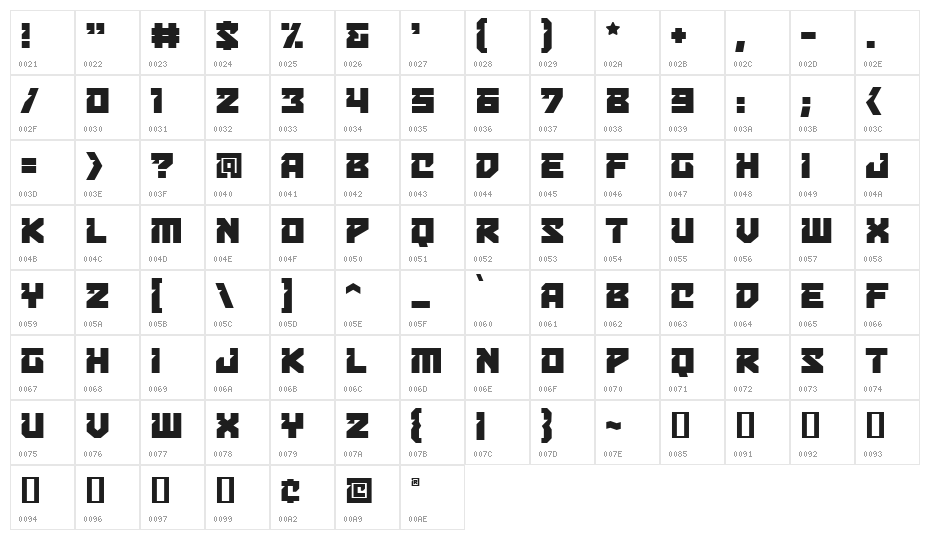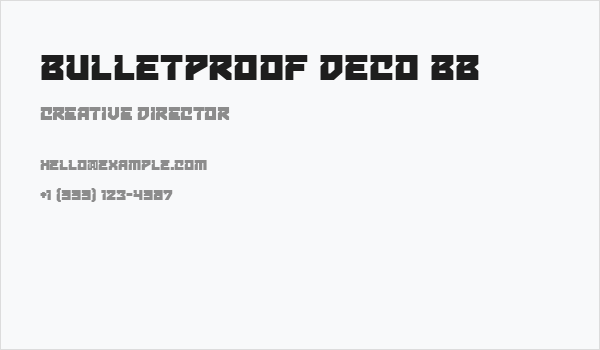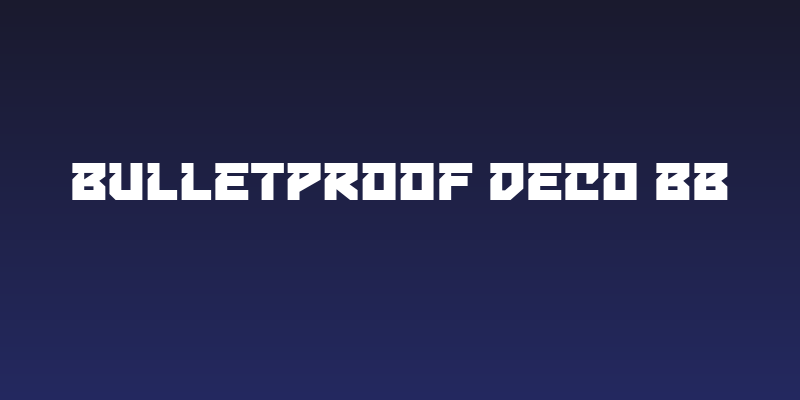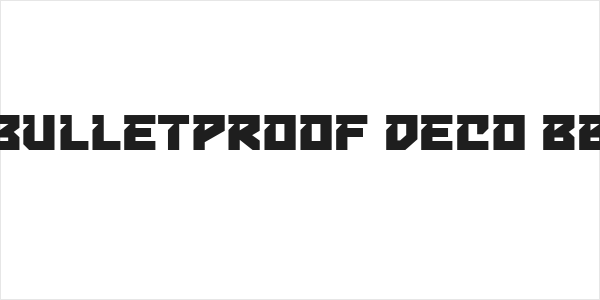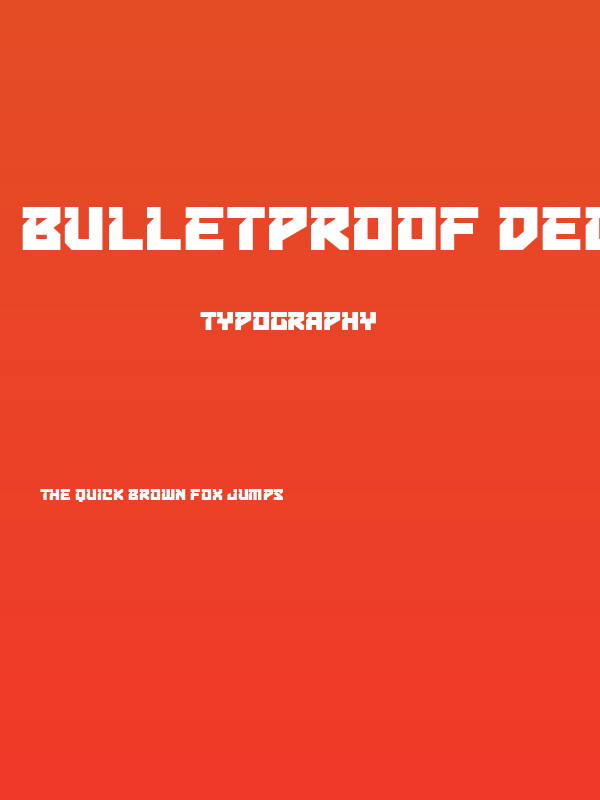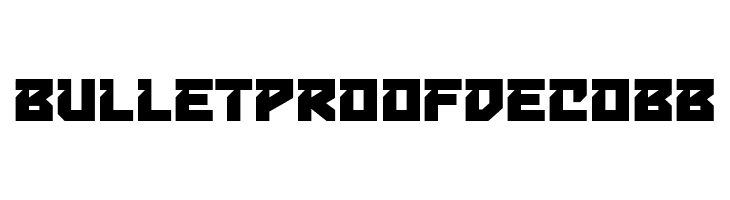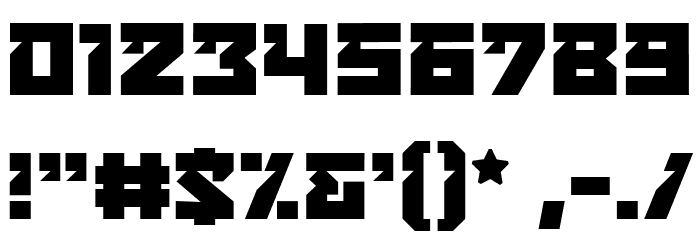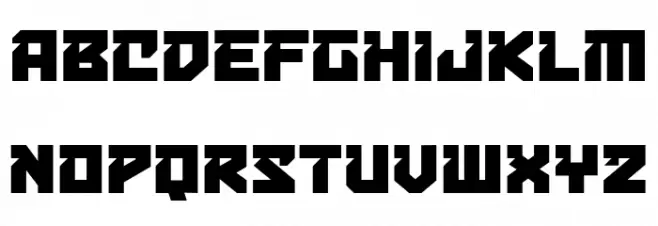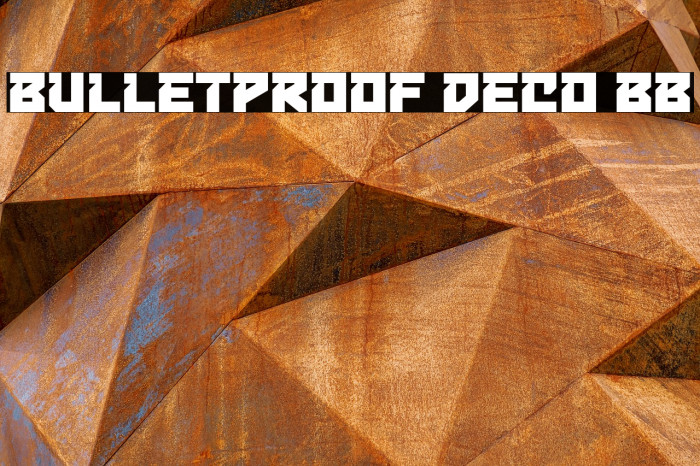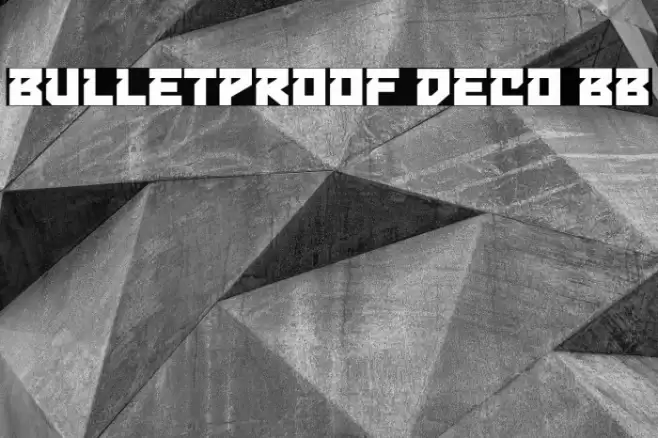
Bulletproof Deco BB Font
✎ Thick
| श्रेणियाँ | Thick |
| उपयोग का मामला | Headlines, Logos |
| सुझाए गए प्रोजेक्ट | Ideal for posters, logos, video game graphics, and branding materials that require a strong, impactful design. |